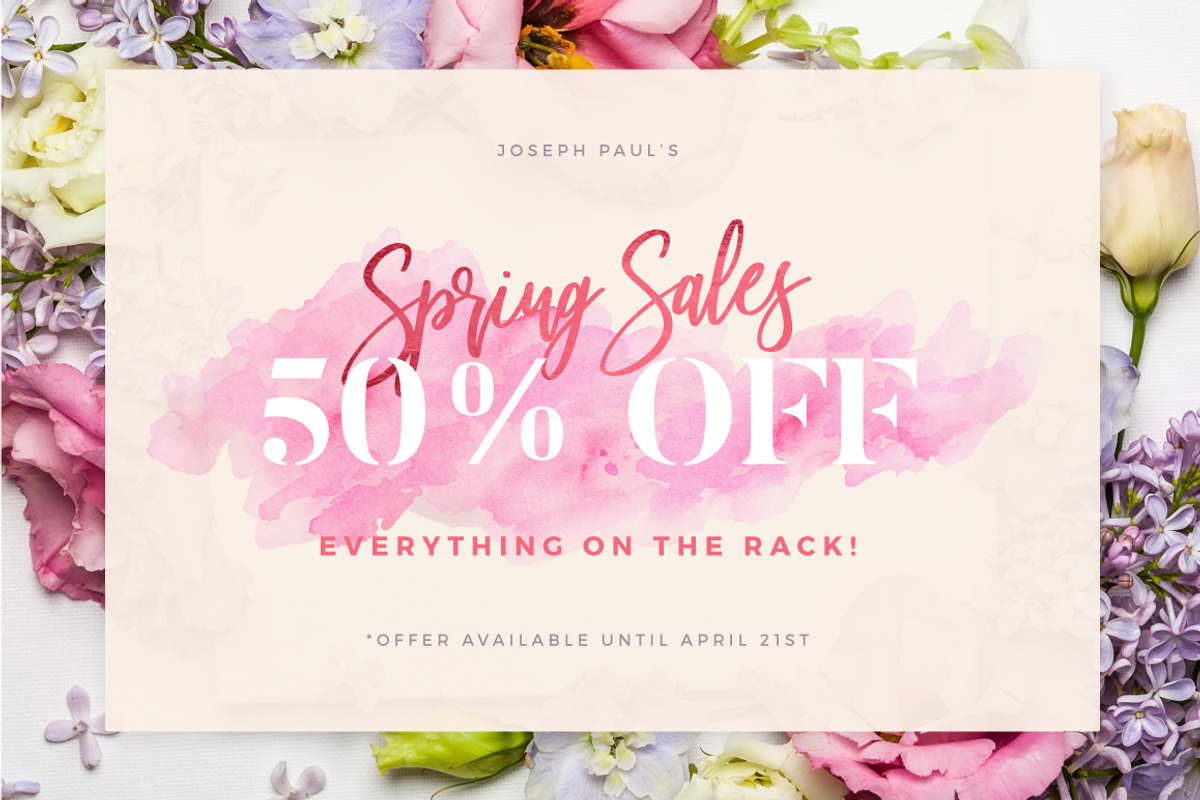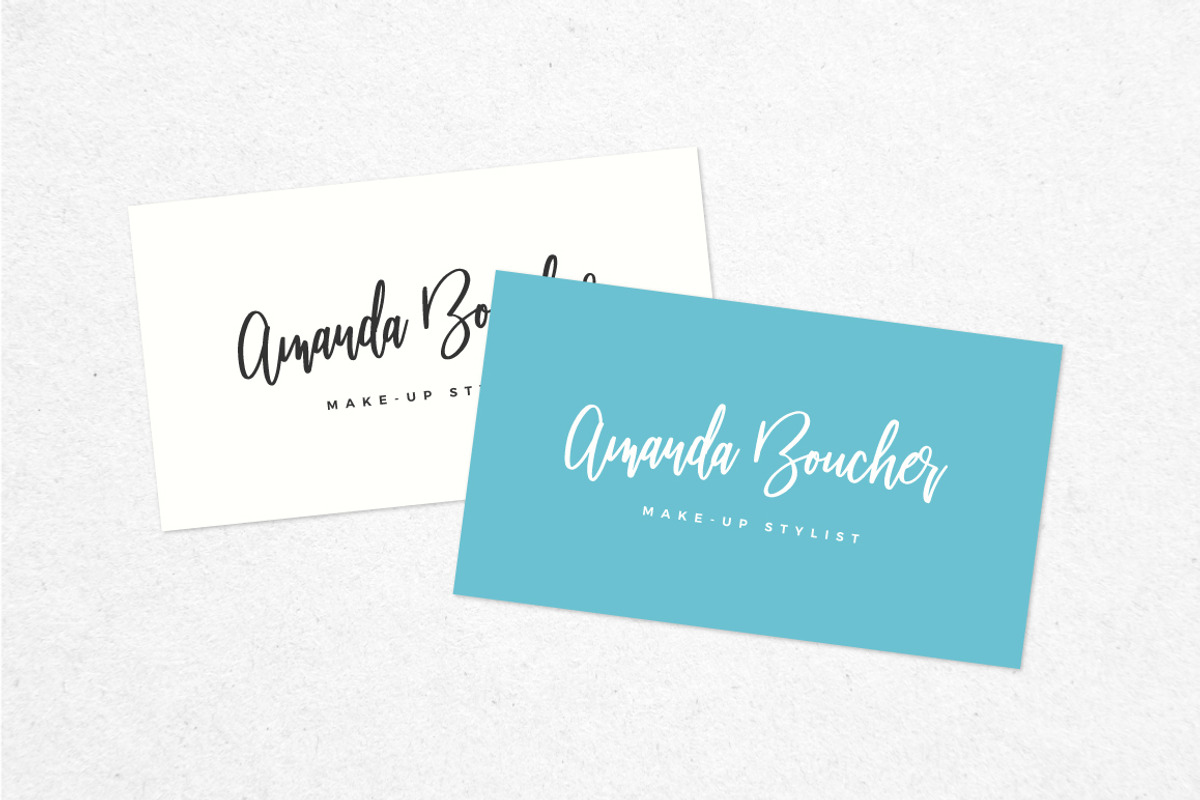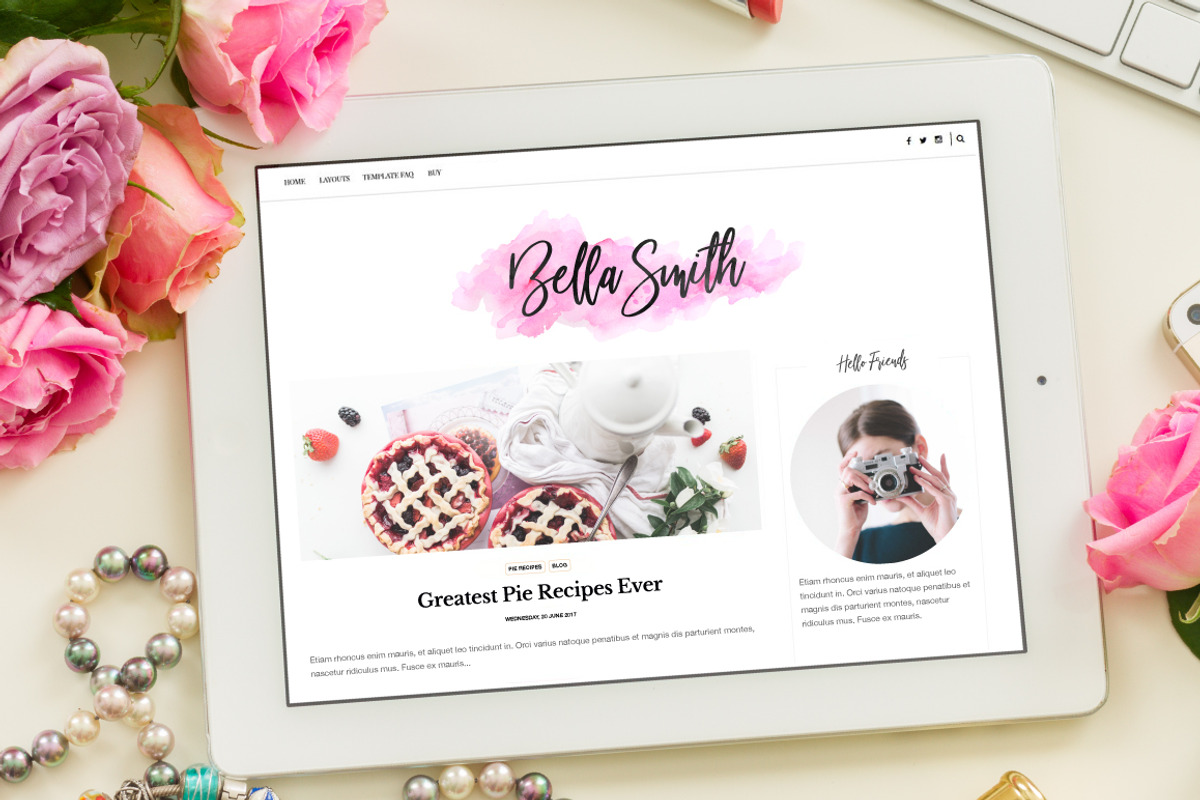
Beautiful Bloom Typeface
Beautiful Bloom Typeface by Mats-Peter Forss is a font selected for branding, posters, packaging, typography.
- It's authentically handlettered font with full alternates (upper and lowercase).
- Alternates for upper and lowercase characters.
- BEAUTIFUL BLOOM TYPEFACE ALT - Alternates for upper and lowercase characters.
Why Beautiful Bloom Typeface is worth a look
Beautiful Bloom Typeface by Mats-Peter Forss fits naturally into Branding, posters, packaging, typography.